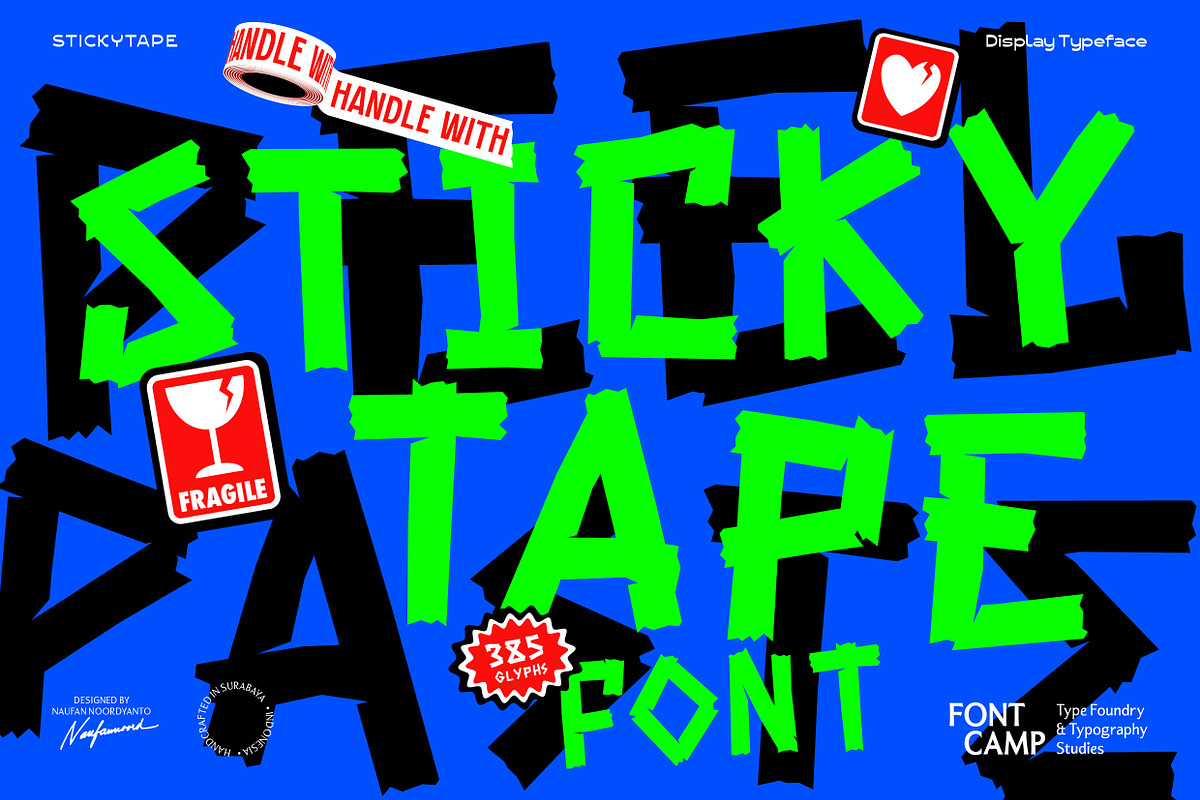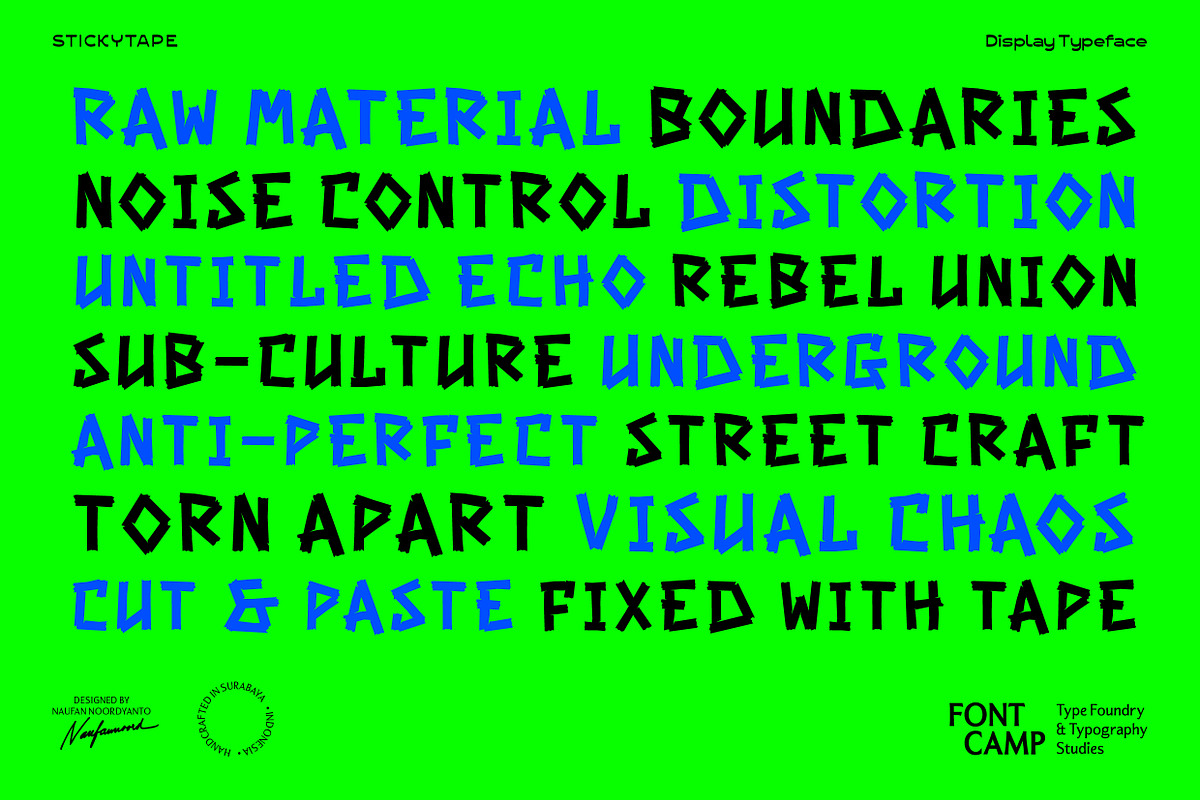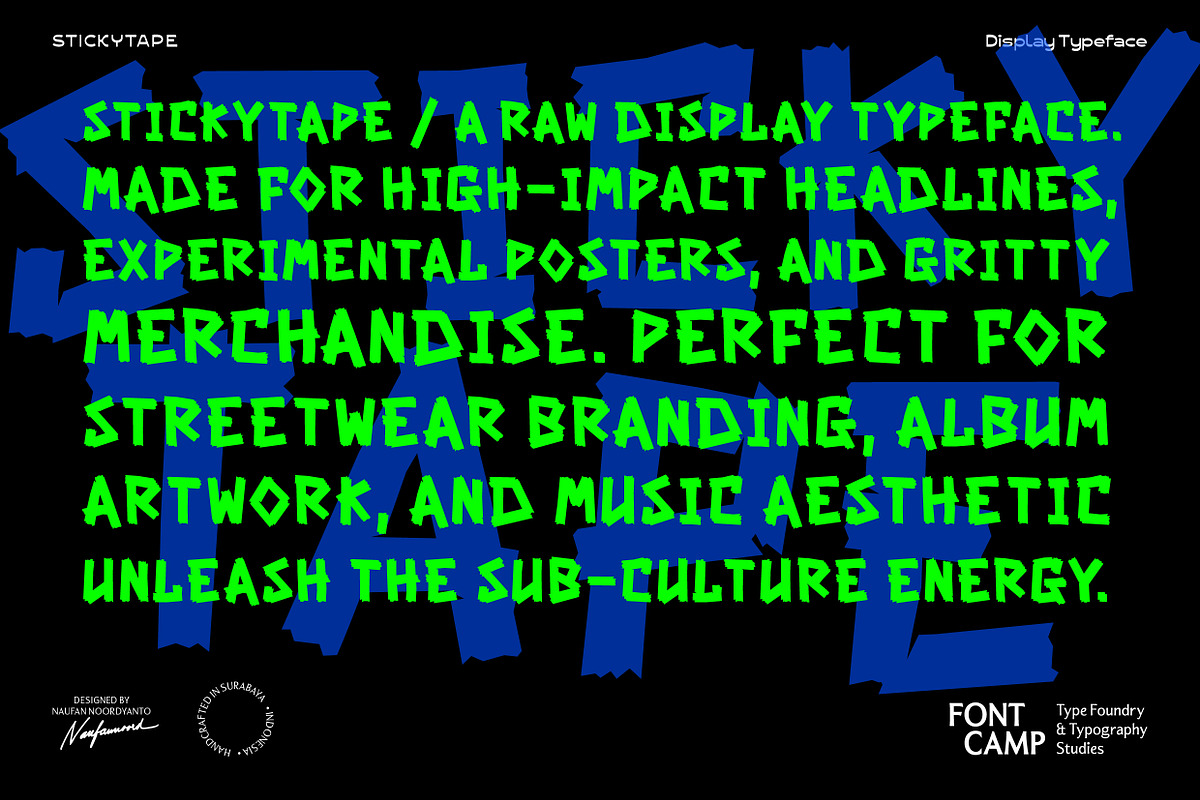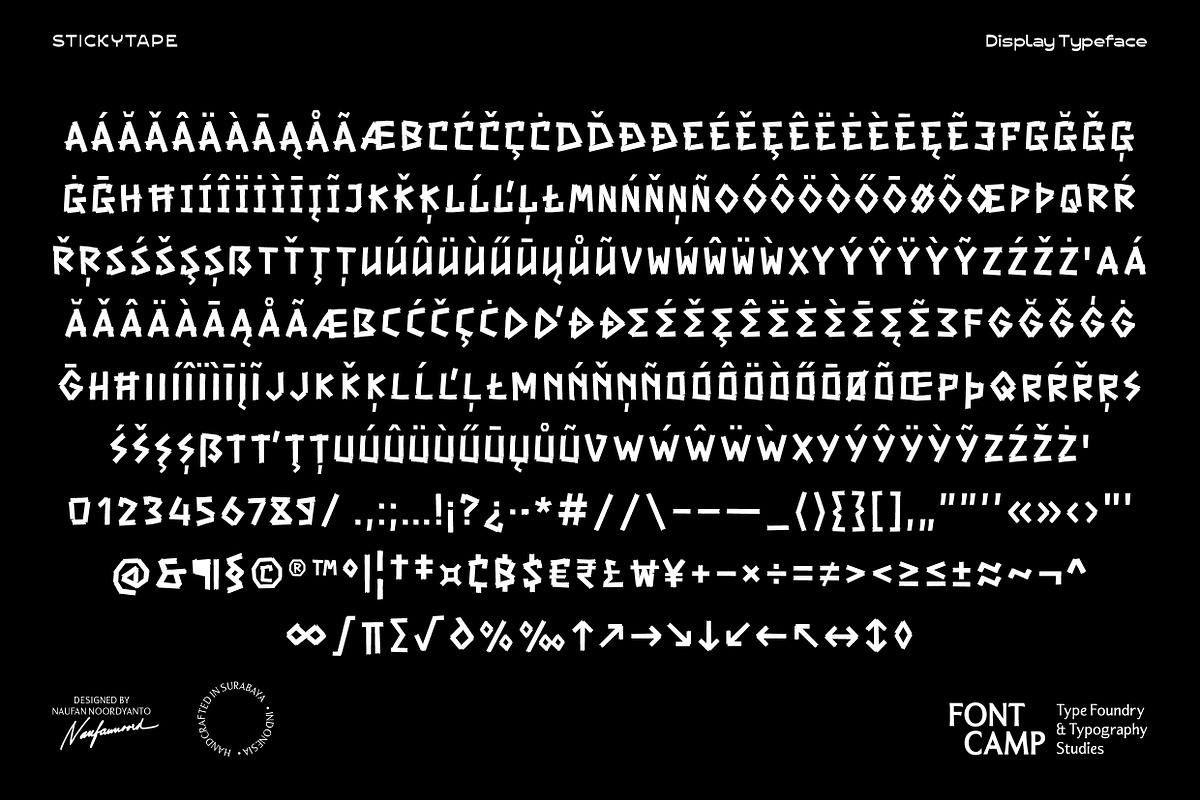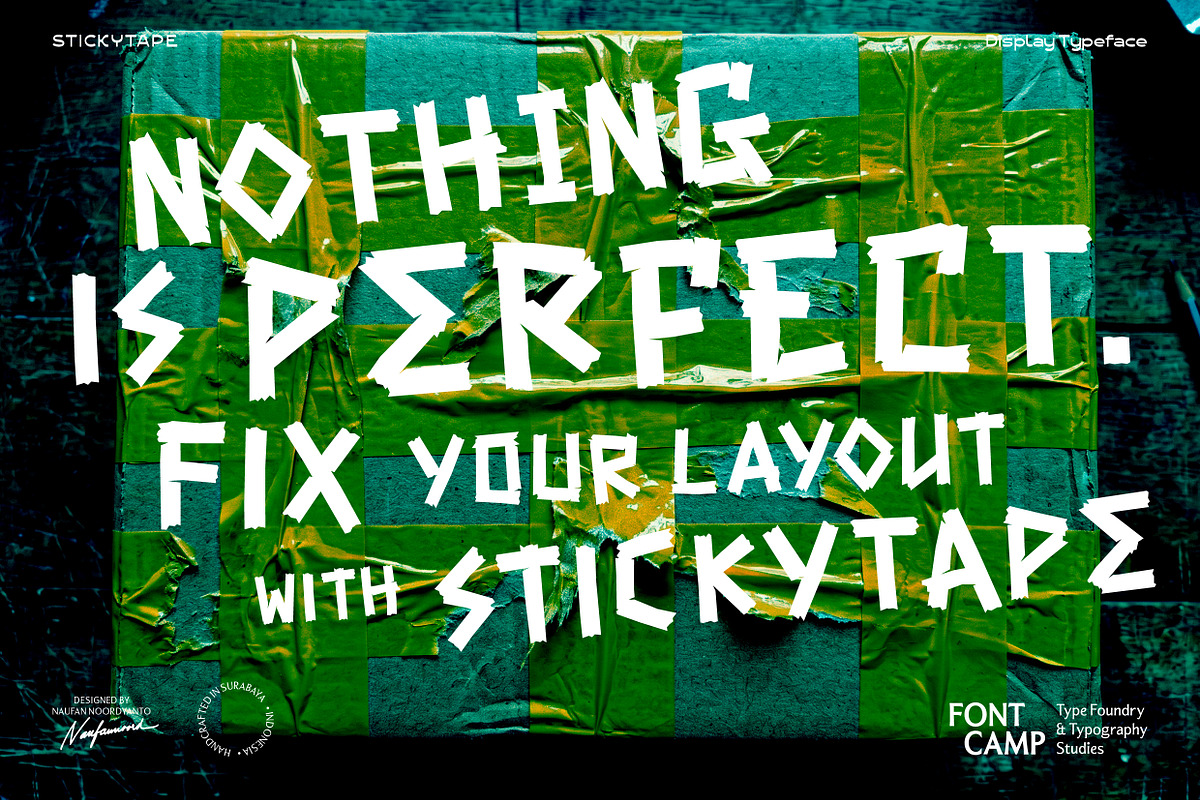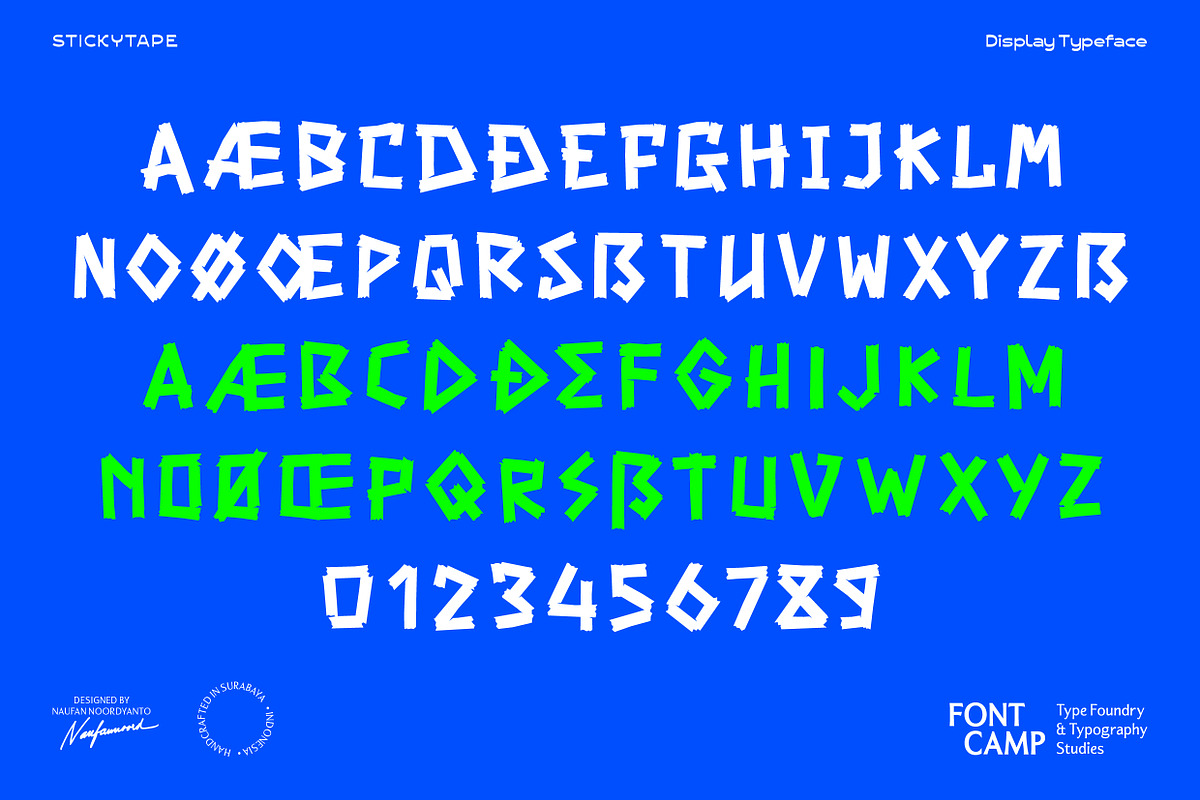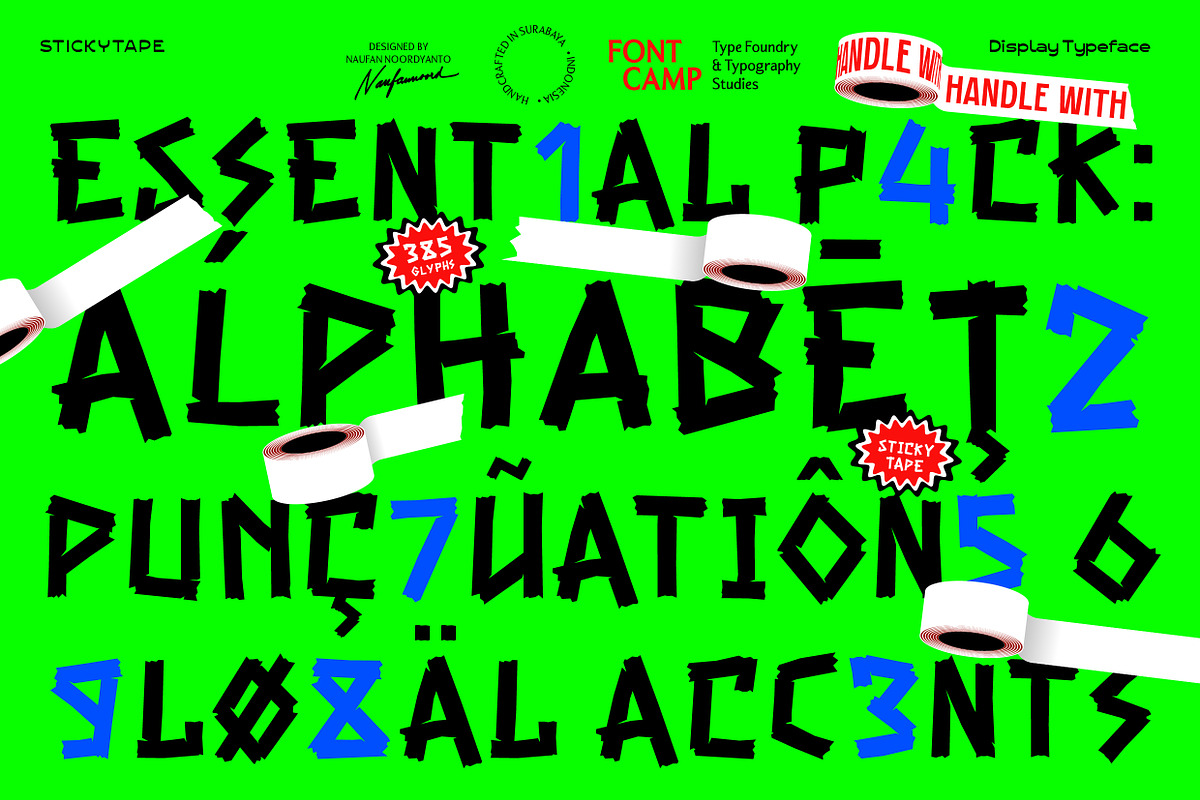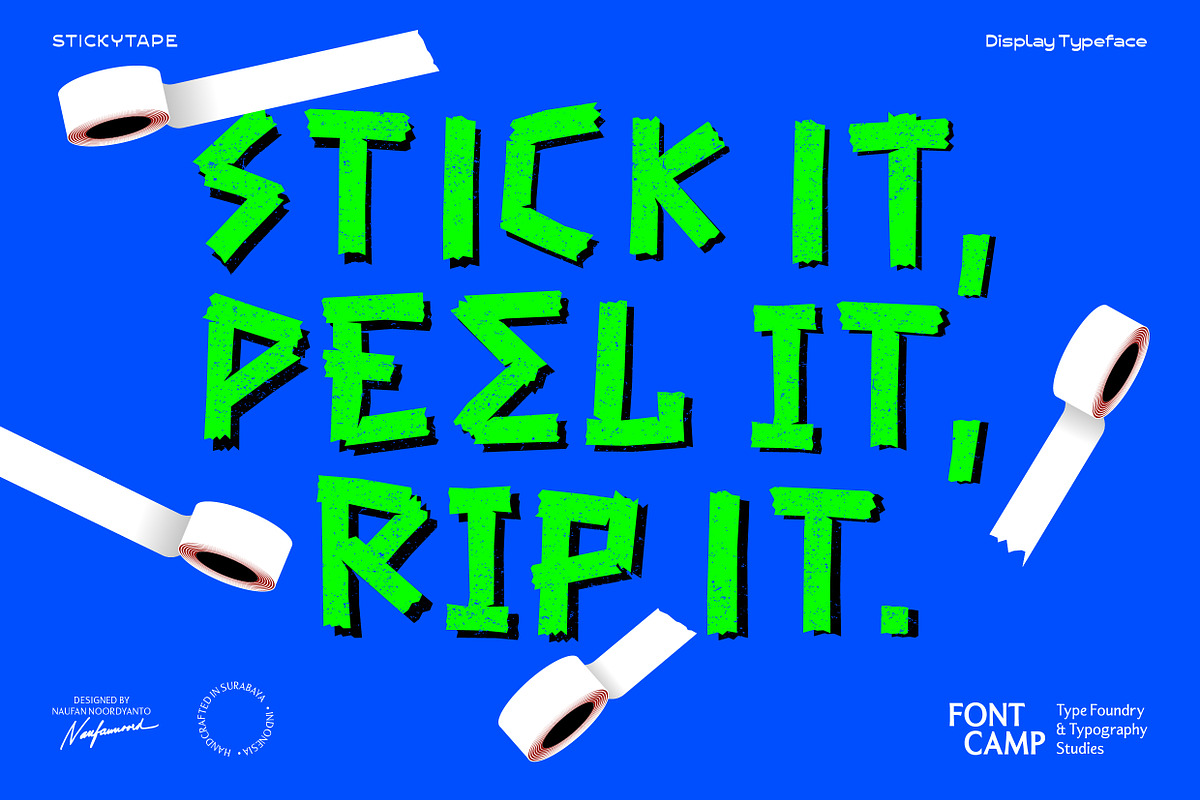
Stickytape Font
Introducing the "STICKYTAPE" Font.
Stickytape is a bold, expressive display typeface inspired by the raw, asymmetrical appearance of roughly applied adhesive tape. Its most prominent feature is a sharp, jagged construction and distressed, tactile texture, giving the text a feeling of unpolished attitude and spontaneous movement, mimicking hand-torn industrial tape. The letterforms are naturally bold and compact with an All-Caps design, allowing for tight, impactful text layouts that maintain a commanding presence.
An organic touch shines through its geometric, irregular cuts and subtle, rough imperfections at the terminals of each letter. The unique angles and confident horizontal strokes create a personal, rebellious, and artistic aesthetic. This lively and energetic structure makes Stickytape an ideal choice for modern branding projects, eye-catching poster headlines, heavy-hitting streetwear merchandise, music album art, or any creative design that embraces an unconventional, sub-culture vibe.
Expansive character library: engineered with 385 meticulously crafted glyphs, providing full coverage for high-impact displays, symbols, and comprehensive punctuation across a single definitive style (Regular).
Commanding All-Caps design: specially structured as an All-Caps typeface, optimized for casual headlines, bold logotypes, and tactical branding.
Global linguistic support: built with an extended character set to ensure seamless compatibility with multiple languages, supporting diverse diacritics and special accents.